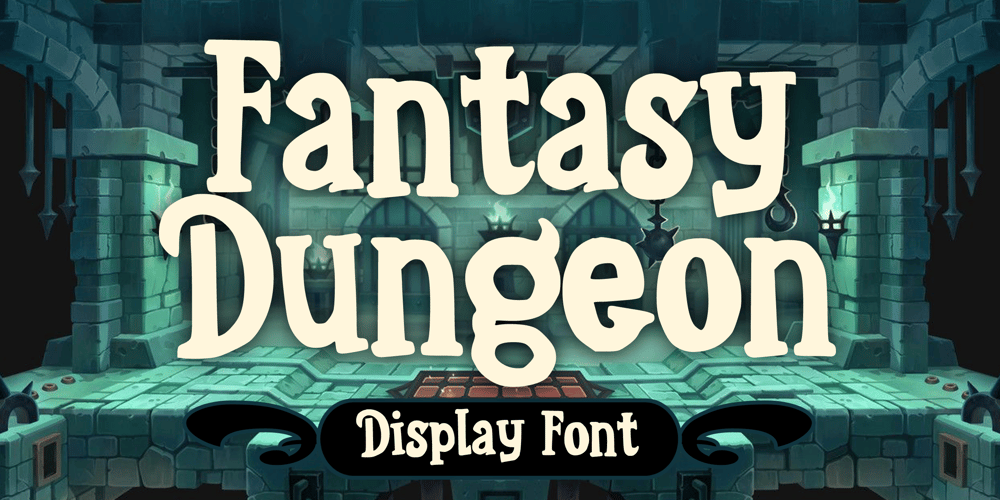
Fantasy Dungeon Font Family was designed by Gabriel Valentinus and published by Mvmet. Fantasy Dungeon contains 1 styles and family package options. Fantasy Dungeon is a fun and playful antique medieval-themed font. You can use it for anything ranging from t-shirts, kids’ book designs, game designs, and greeting cards to stickers and posters, or anything that needs a middle-ages vibe. Fall in love with its incredibly versatile style and use it to create lovely designs!